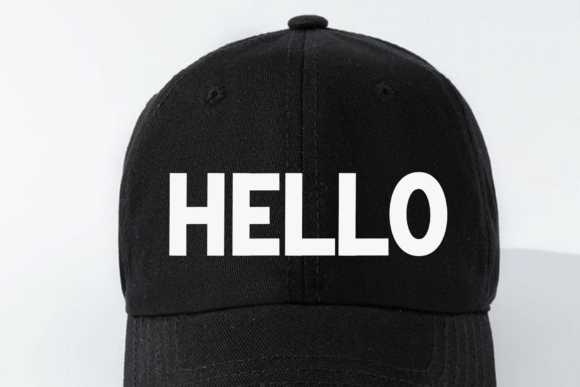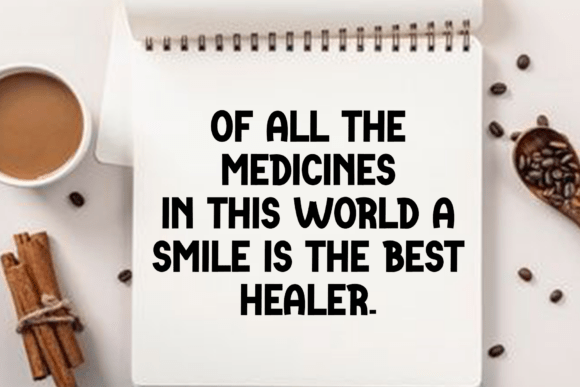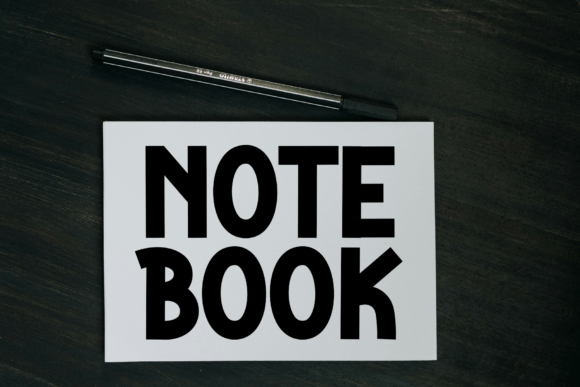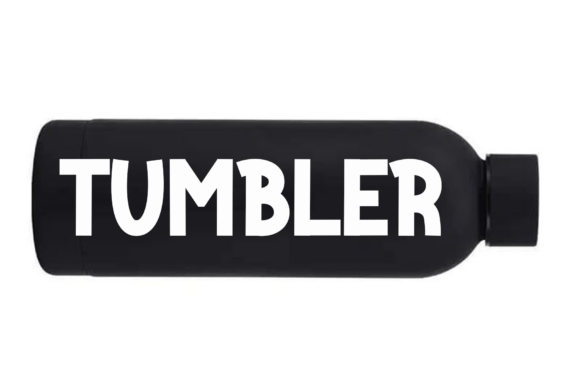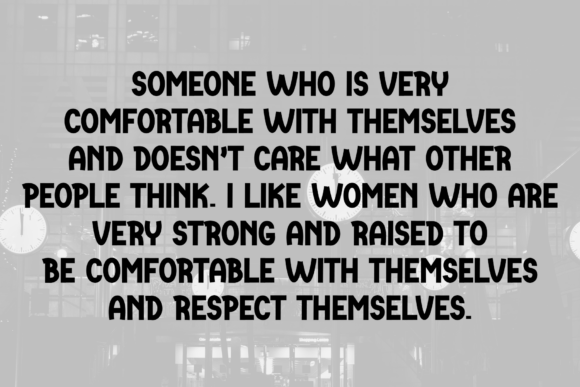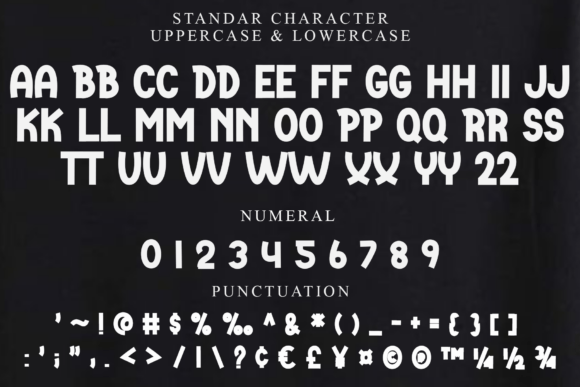
The Magic of Cake Birthday Font: A Designer’s Delight
I’ll never forget the time I was working on a holiday-themed project for a client, and I just couldn’t find the right font to capture the festive spirit. The project was for a children’s party invitation, and I wanted something that would make the kids (and their parents) feel like they were in for a treat. That’s when I stumbled upon the Cake Birthday font, and it was love at first sight! 🎉
A Festive and Merry Typeface
Cake Birthday is a decorative font that embodies the joy and magic of the holiday season. Its whimsical flair and enchanting elements make it perfect for adding a touch of wonder to your designs. Whether you’re working on greeting cards, gift tags, or holiday-themed projects, this font is sure to bring a cheerful and nostalgic ambiance to your words.
So, what do I love about Cake Birthday font? Here are a few things that make it stand out:
- 🎉 Festive and fun: The font’s playful and whimsical design is perfect for holiday-themed projects and adds a touch of magic to your words.
And, like any font, it’s not without its quirks. Here are a few things to keep in mind:
- ⚠️ Limited use cases: While Cake Birthday is perfect for holiday-themed projects, it may not be the best choice for more formal or professional designs.
The Story Behind Cake Birthday Font
Cake Birthday font was designed by a team of creative typographers who wanted to capture the magic and wonder of the holiday season. Inspired by traditional holiday decorations and festive typography, they created a font that’s both playful and elegant. The result is a font that’s perfect for adding a touch of enchantment to your designs.
| Q: What is Cake Birthday font? | A: Cake Birthday font is a decorative font that’s perfect for holiday-themed designs. |